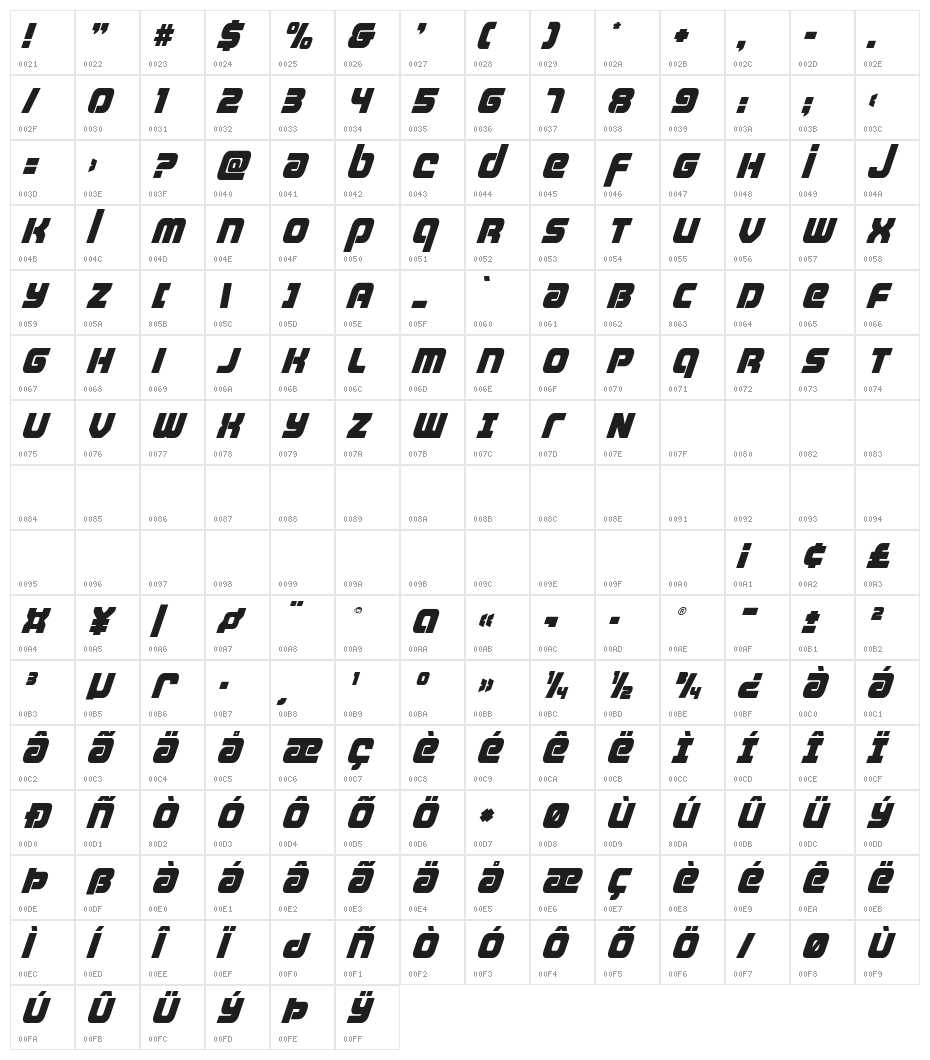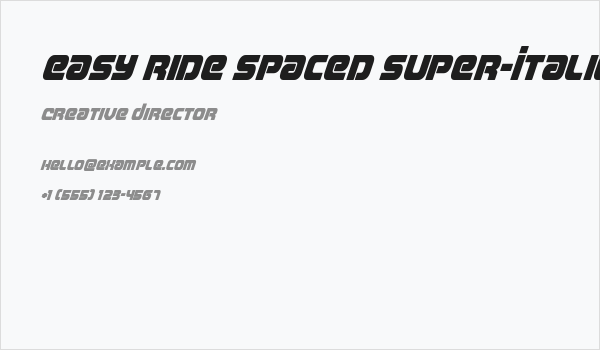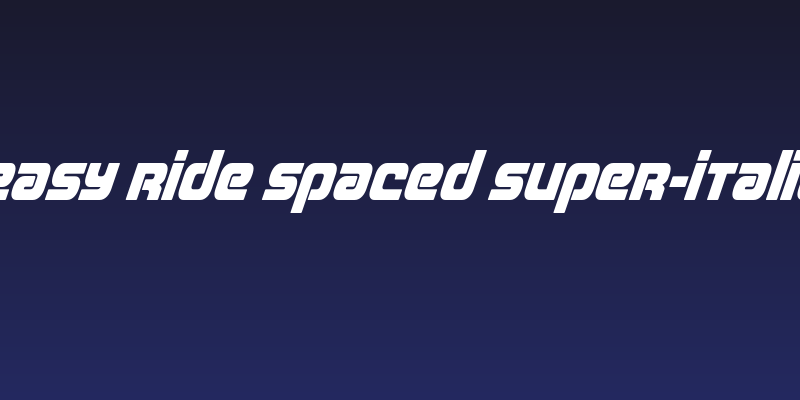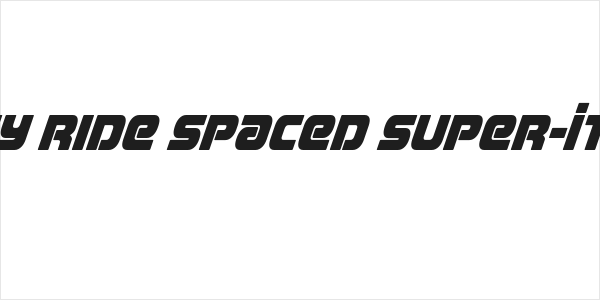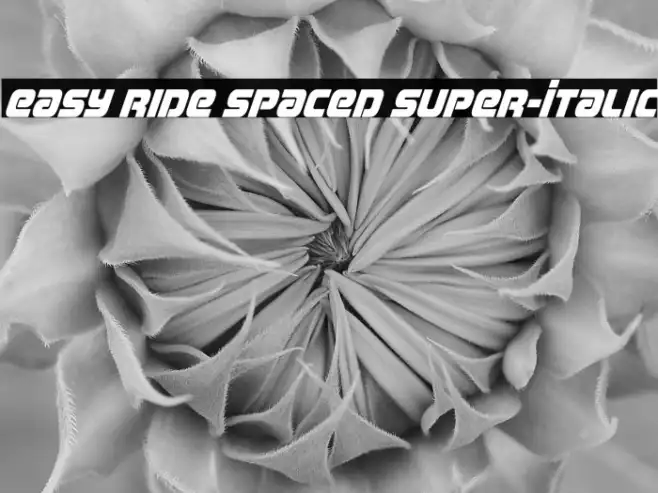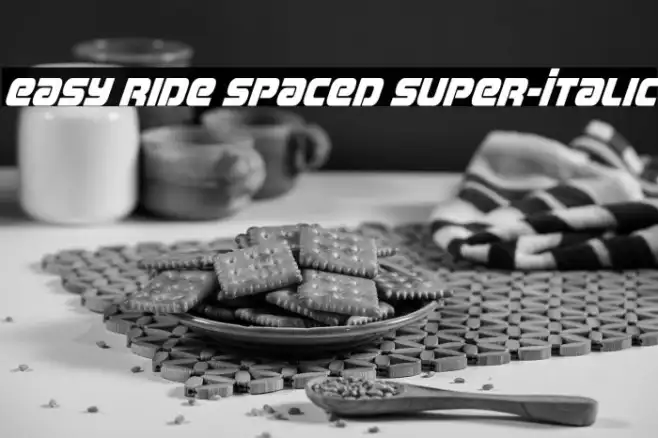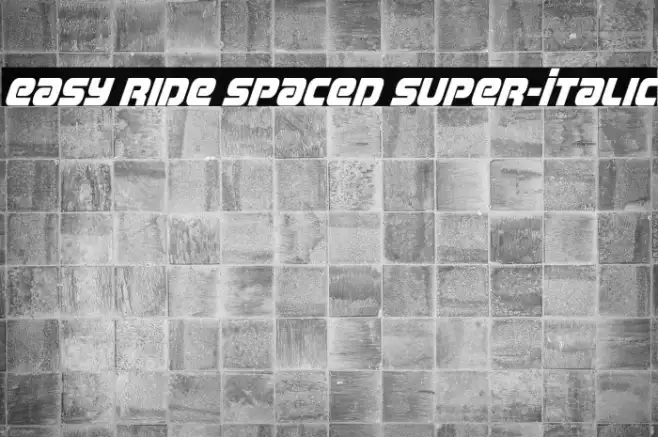
Easy Ride Spaced Super-Italic Font
Easy Ride Spaced Super-Italic Description
This font features a bold, italicized style with a modern and dynamic appearance. The characters are designed with a forward-leaning slant, giving a sense of motion and speed. The strokes are thick and uniform, providing a strong visual impact. The font has a slightly condensed width, which enhances its compact and powerful look. The character spacing is tight, contributing to its cohesive and streamlined aesthetic. This font is well-suited for projects that require a bold and energetic feel.
| Use Case | Logos, Headlines |
| Proposed Projects | Ideal for sports branding, automotive advertisements, dynamic posters, and energetic logo designs. |